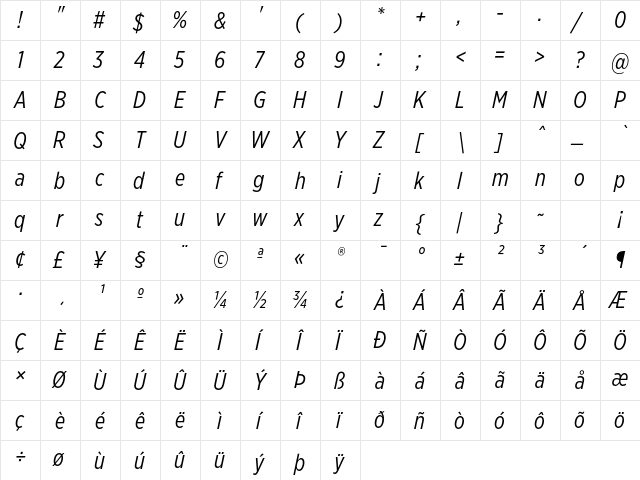
Gotham XNarrow Book Italic Font Preview
| Foundry | Hoefler & Frere-Jones |
| Designer | Hoefler & Frere-Jones |
Design Context for Gotham XNarrow Typeface
Gotham XNarrow is a composed and adaptable typeface that performs quietly and consistently across a wide range of design contexts. The dynamic lean of this cut emphasises speed and emphasis in any layout. The condensed width makes it efficient for tight spaces without sacrificing legibility.
Pro Tip: Try Gotham XNarrow for annotation and caption copy alongside an upright companion — the contrast in angle creates a dynamic but ordered typographic system.